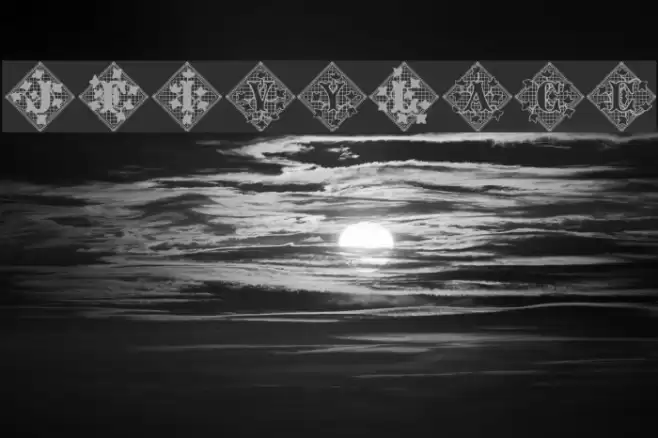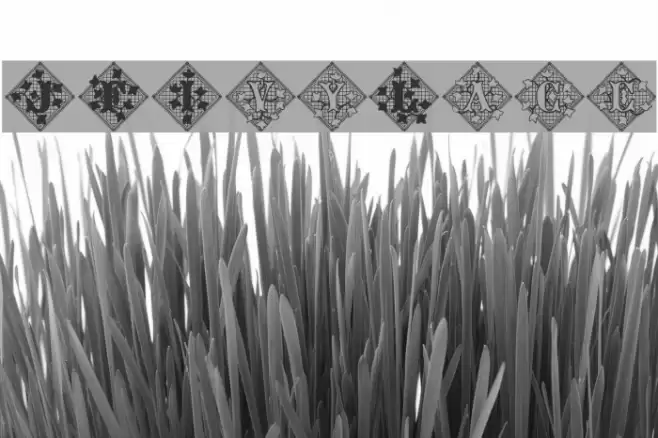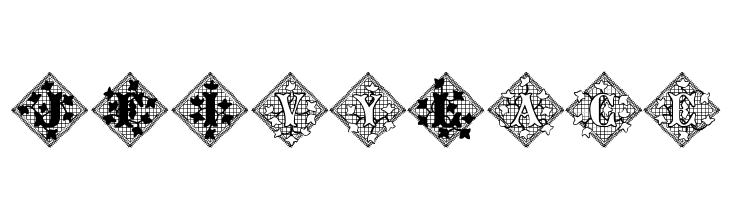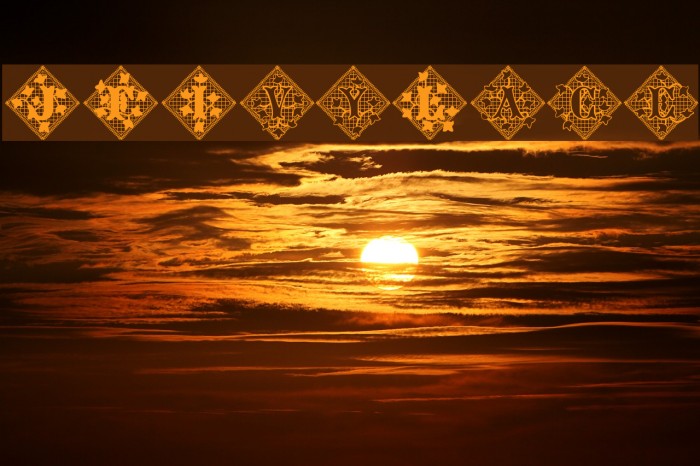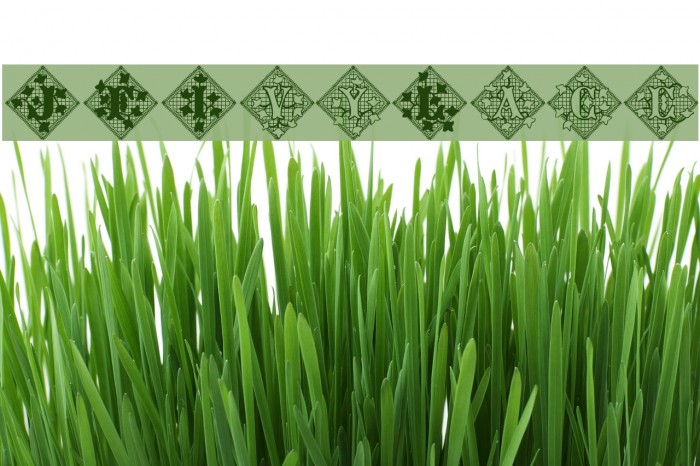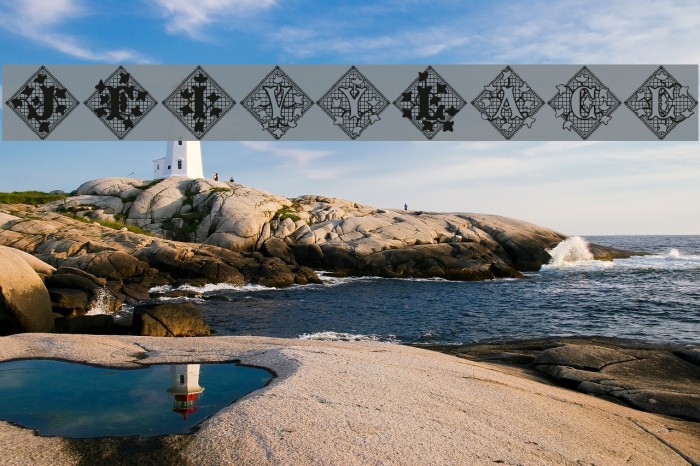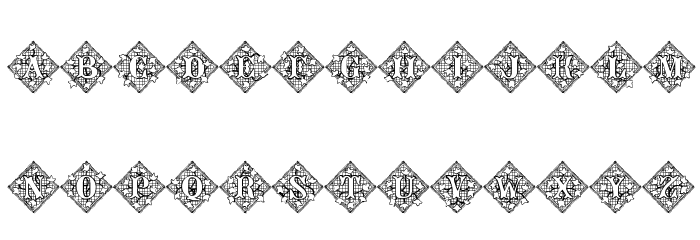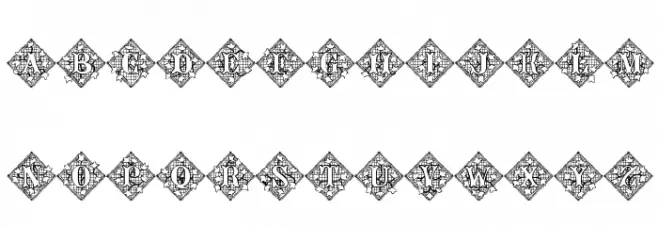
JFIvyLace
This font features an intricate and decorative style, with each letter encased in a diamond-shaped border. The design is reminiscent of lacework, with elaborate patterns and flourishes that give it a luxurious and ornate appearance. The letters themselves are bold and stand out against the detailed background, making them highly legible despite the complexity of the design. This font is ideal for projects that require a touch of elegance and sophistication, such as wedding invitations, high-end branding, or decorative posters. Its unique style makes it a standout choice for any project that aims to capture attention and convey a sense of refinement.
An ornate and decorative font with intricate lace-like patterns and diamond-shaped borders.
- Proposed Projects: Wedding invitations, luxury branding, decorative posters, event announcements.
- Contrast: High
- Overall Style: Decorative